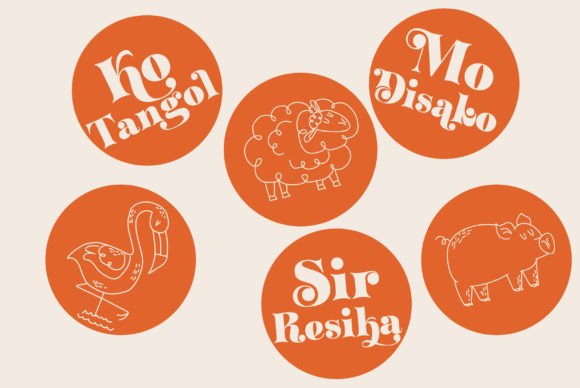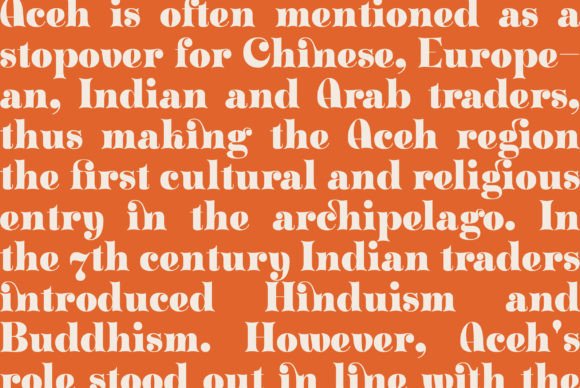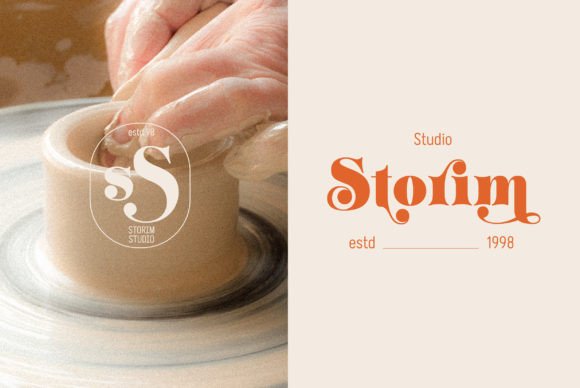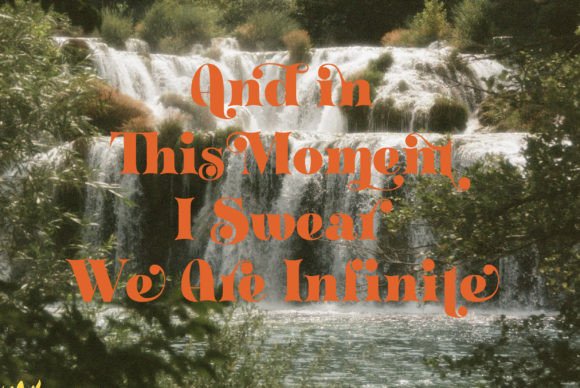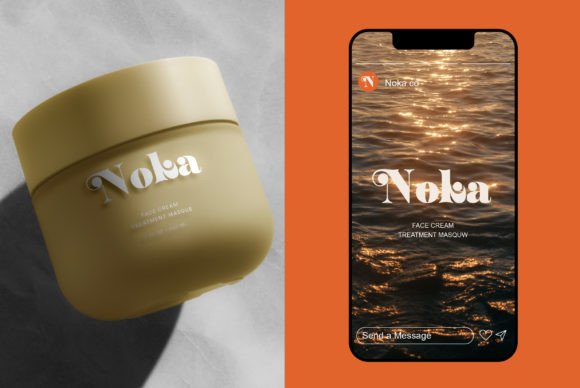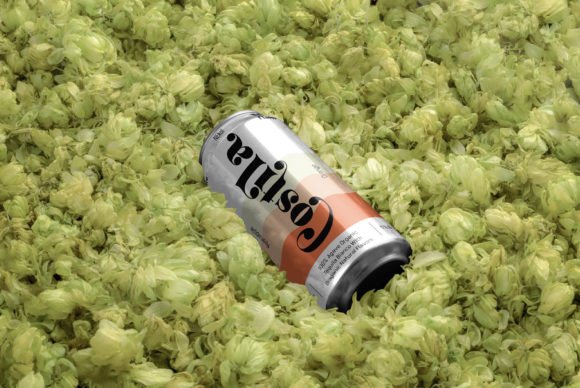
Introduction to Klotin Font
Have you ever been browsing through design inspiration boards, scrolling through Pinterest or Instagram, and come across a font that just stops you in your tracks? For me, that moment happened when I stumbled upon the ZT Klotin Font. Its classic, elegant vibe instantly caught my attention, and I knew I had to learn more about it.
As designers, we’re constantly on the lookout for high-quality design resources that can elevate our creative projects. That’s exactly what the Klotin Font offers – a unique blend of classic and modern elements that can add a special touch to any design. With its soft curves and interwoven straps, this font is perfect for creating impactful editorial layouts and bold designs.
Whether you’re working on a branding project, wedding invitation, or social media campaign, the Klotin Font is a valuable addition to your design toolkit. And the best part? It’s available for free download, making it an accessible design resource for designers of all levels.
Key Features of Klotin Font
- Features a unique, hand-drawn style with a high level of detail, making it perfect for adding a personal touch to designs
Honest Review: Klotin Font
I recently stumbled upon the Klotin Font, and I’m excited to share my thoughts on this design resource. As a designer, I’m always on the lookout for high-quality fonts that can elevate my creative projects. The Klotin Font definitely delivers.
- ✨ High-quality design: The Klotin Font is well-crafted, with smooth lines and a clean aesthetic.
- ✨ Versatility: This font is perfect for a variety of creative projects, from branding to publishing.
- ⚠️ Limited font styles: The Klotin Font only comes in a few styles, which may limit its use in certain projects.
- ⚠️ No transparent background option: If you need a font with a transparent background, you may need to look elsewhere.
Overall, I’m impressed with the Klotin Font, and I would recommend it to designers looking for a high-quality, free font for their creative projects.
Tips for Getting the Most Out of Klotin Font
To get the most out of Klotin Font, use it in combination with other design elements, such as images and shapes, to create a unique and creative design. You can also experiment with different font sizes and colors to add visual interest to your design.
Common Use Cases for Klotin Font
The Klotin Font is a great choice for a variety of creative projects, including logos, business cards, and brochures. It’s also a popular choice for designers who want to create a high-quality design with a transparent background.